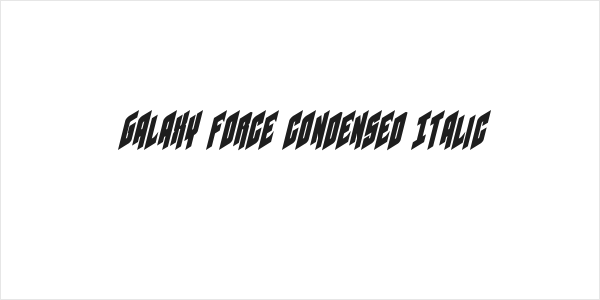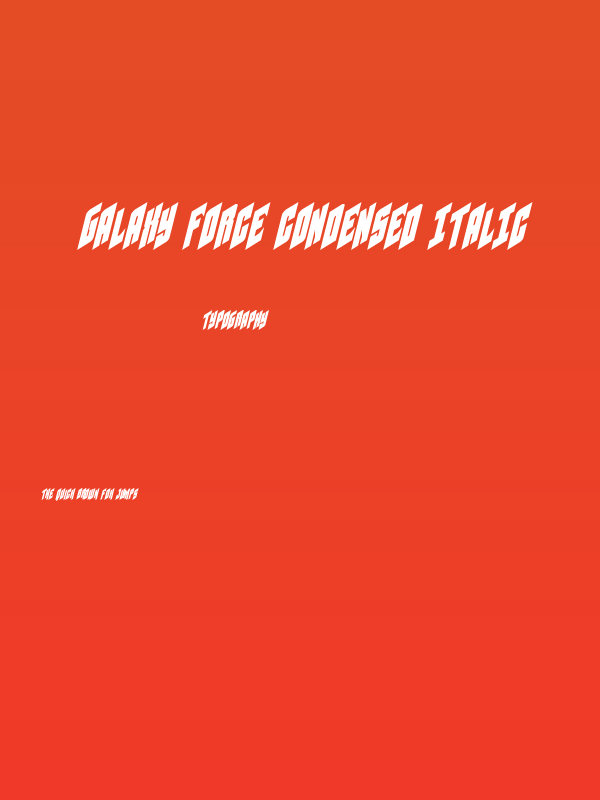
Galaxy Force Condensed Italic Font
Galaxy Force Condensed Italic Description
This font features a bold and dynamic design with a strong, angular structure. The letters are sharply cut, giving a sense of movement and urgency. The condensed form allows for efficient use of space, while the italic slant adds a sense of speed and modernity. The uppercase and lowercase letters maintain a consistent style, with numbers and special characters following suit. This font is ideal for projects that require a futuristic or energetic feel, making it suitable for gaming, technology, or sports branding.
Proposed ProjectsIdeal for gaming titles, tech branding, sports logos, and dynamic posters.